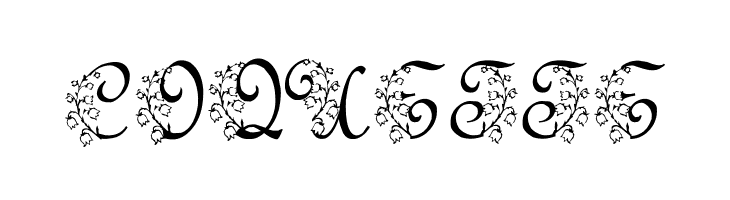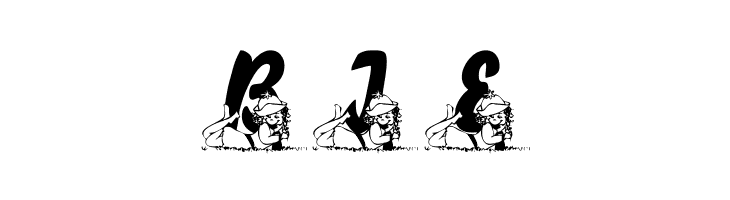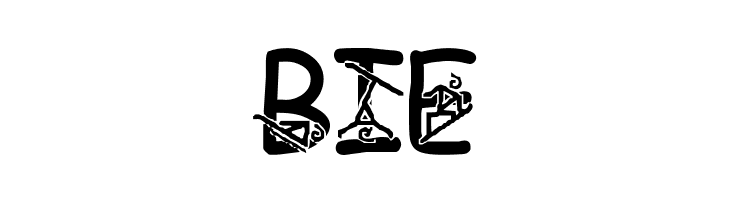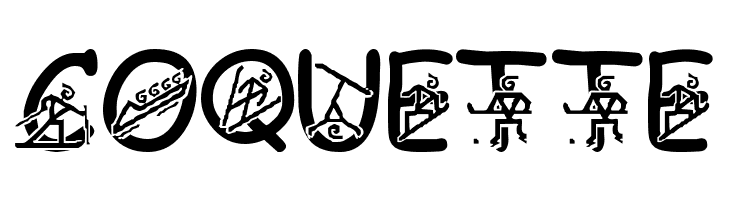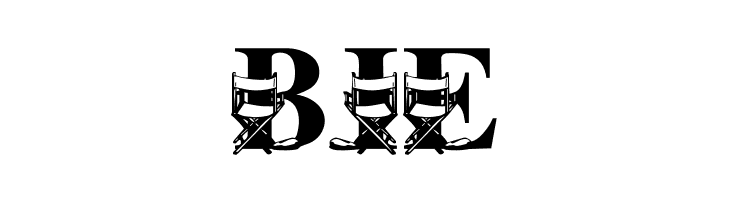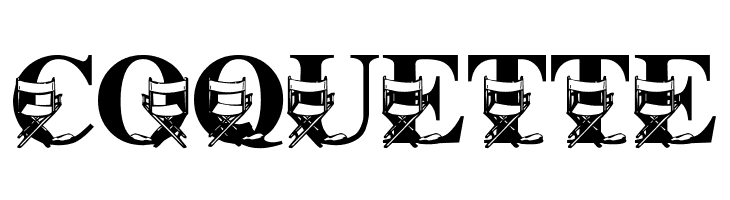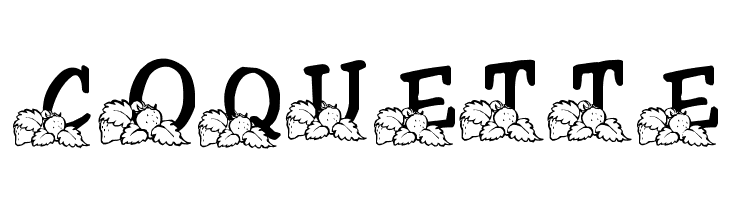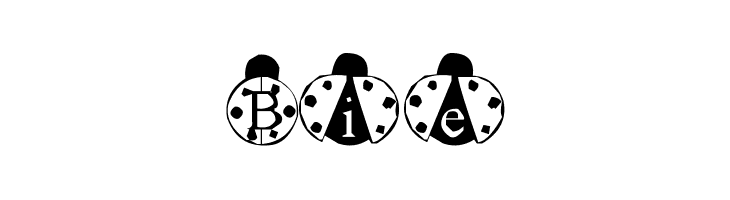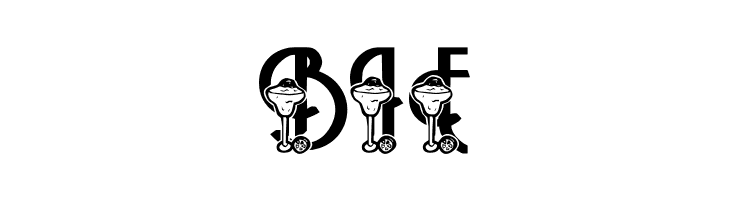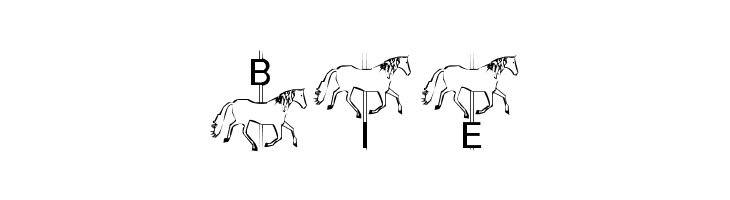
A playful, decorative script font with whimsical illustrations.
A bold, decorative font with snowflake-filled characters for festive designs.
A decorative font with characters embedded in floral designs.
A decorative font with floral embellishments and a blend of serif and modern styles.
A bold, decorative font with abstract, flame-like patterns within each character.
A decorative font inspired by cinema, featuring intricate designs with a film theme.
A decorative font with bold letters and floral embellishments.
A whimsical font with characters encased in a stylized lion's mane.
A playful, ladybug-themed decorative font with characters inside insect shapes.
A playful, bold font with cartoon character illustrations peeking over each letter.
A decorative font with floral motifs integrated into each letter, perfect for artistic projects.
A playful, decorative font with cartoon characters integrated into bold letters.
A bold decorative font with integrated fish graphics for a playful touch.
A whimsical decorative font featuring carousel horses integrated with each letter.
A bold, decorative font with horse silhouettes integrated into each character.
A playful, cupcake-themed decorative font with bold, rounded characters.
A bold, football-themed font with integrated sports elements.
A whimsical, bold font with integrated character illustrations.
A bold, playful font with trolley graphics at the base of each letter.
A bold serif font with playful rabbit illustrations integrated into each character.
A playful font with letters integrated into a classic van design, offering a nostalgic and decorative style.
A playful font with cheerleader graphics and bold, uppercase letters.
A decorative font with ballet-themed embellishments and elegant flourishes.
A whimsical font with bold letters and playful squirrel illustrations.
A bold, decorative font with maple leaf motifs inside each character.
A bold, horror-themed display font with graphic elements.
A bold, decorative font featuring embedded Olympic-themed icons within each character.
A whimsical font with characters displayed on notepads held by cartoon figures, perfect for playful projects.
A novelty font featuring marching figure silhouettes.
A playful, cartoon-themed decorative font with bold characters.
A whimsical serif font with playful bears peeking over each character.
A festive, decorative font with candy cane and bow motifs.
A playful, bold font with rounded edges and thick strokes.